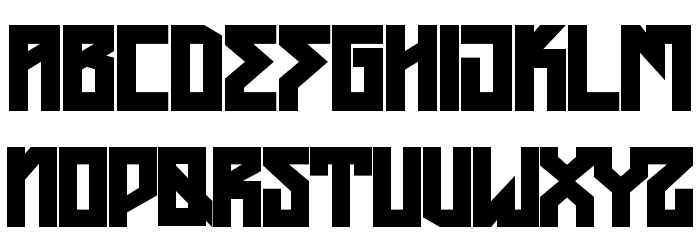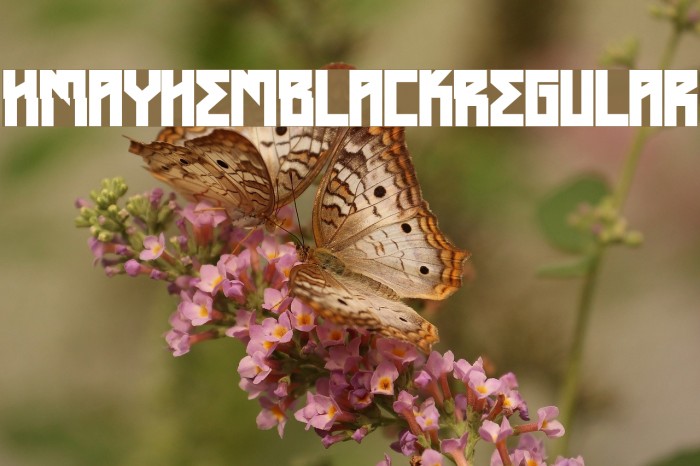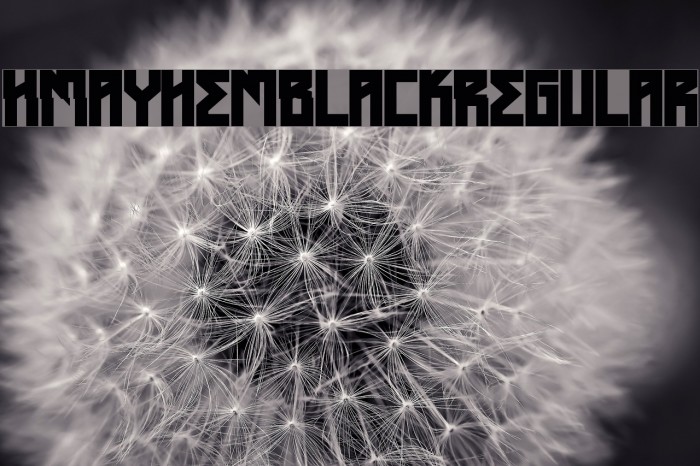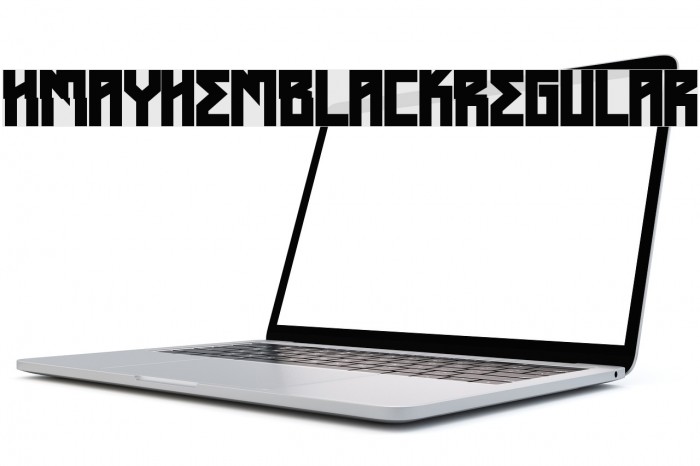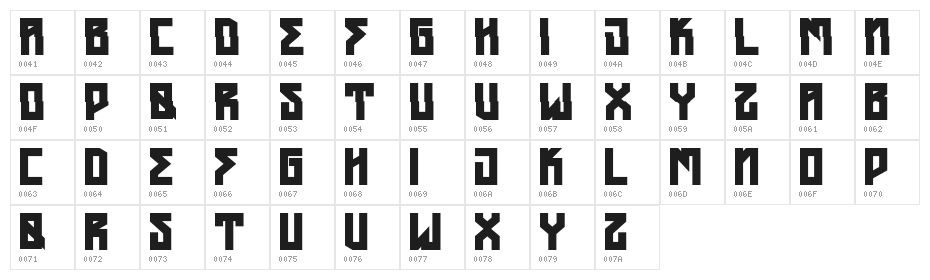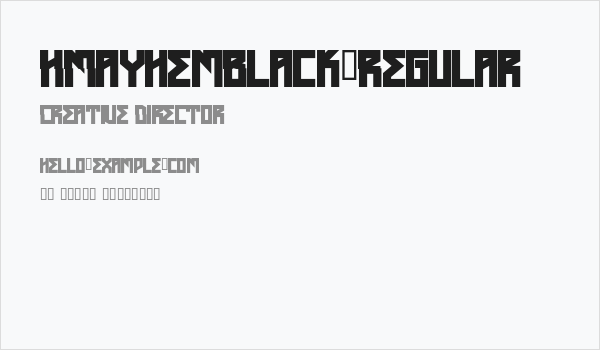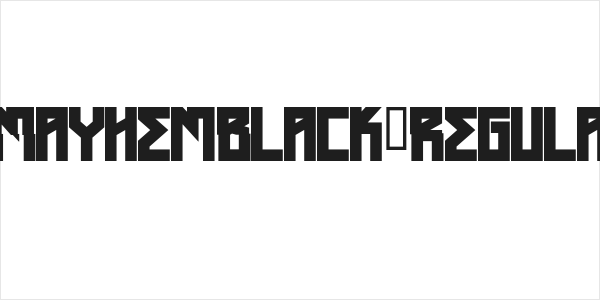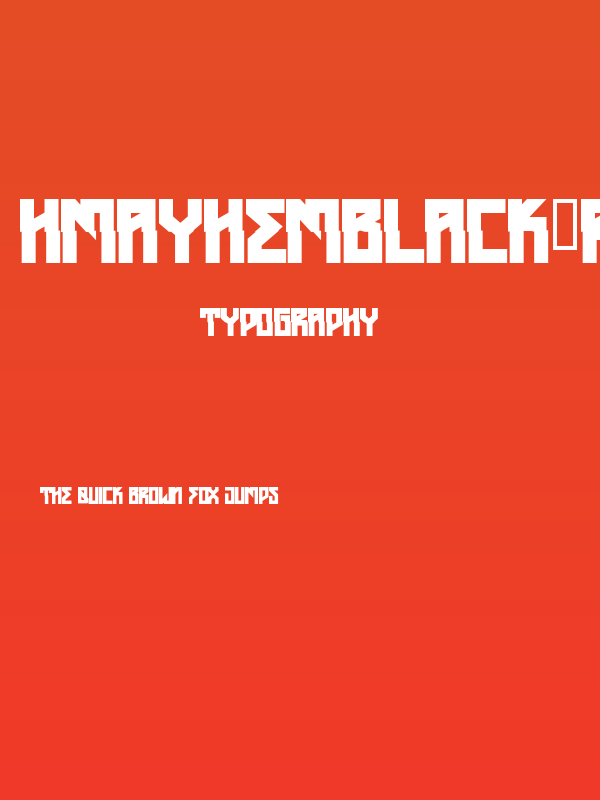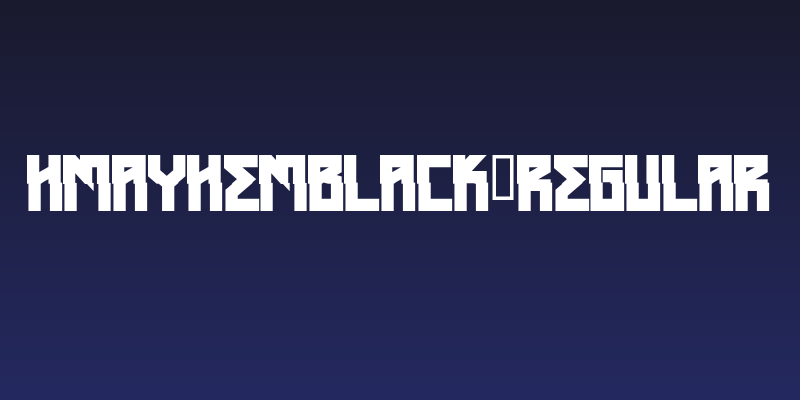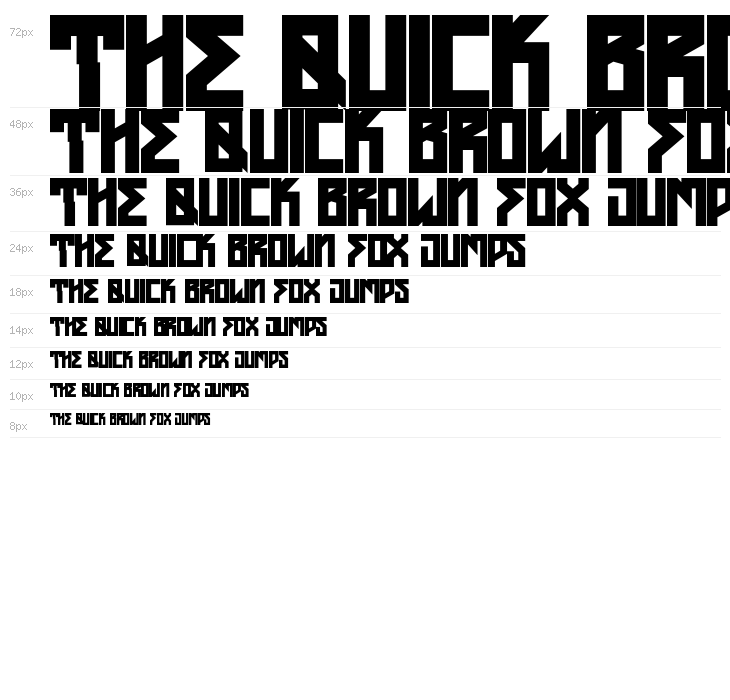
HMayhemBlack-Regular Font
This font exhibits a bold and striking design with a geometric and angular style. The characters are constructed with sharp edges and a blocky appearance, giving it a modern and aggressive look. The uppercase letters are particularly prominent, with a consistent height and width that create a uniform and cohesive appearance. The font lacks any curves, emphasizing its rigid and structured form. It is highly legible at larger sizes, making it suitable for impactful headlines or titles. The absence of lowercase letters and the uniformity in the design suggest a focus on strong visual impact rather than readability in body text.
A bold, geometric font with sharp, angular characters for impactful designs.
- Proposed Projects: Ideal for posters, logos, video game graphics, and any project requiring a bold, modern aesthetic.